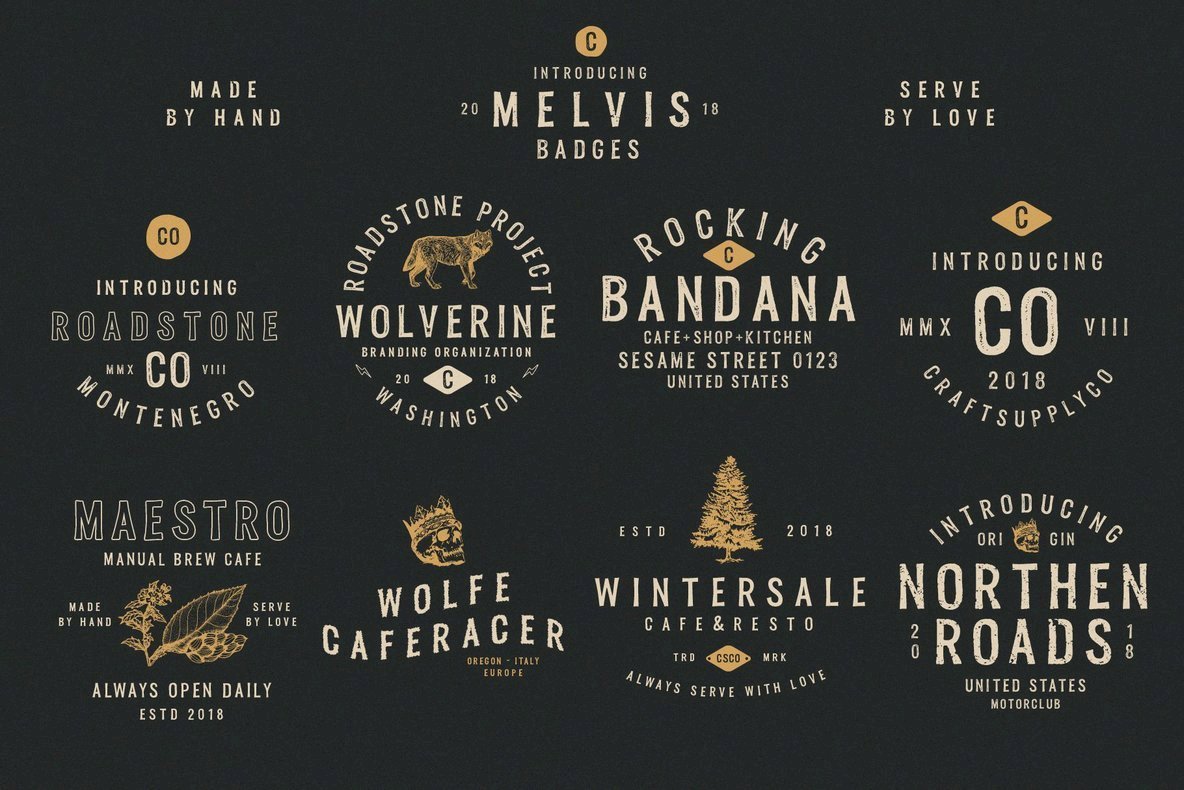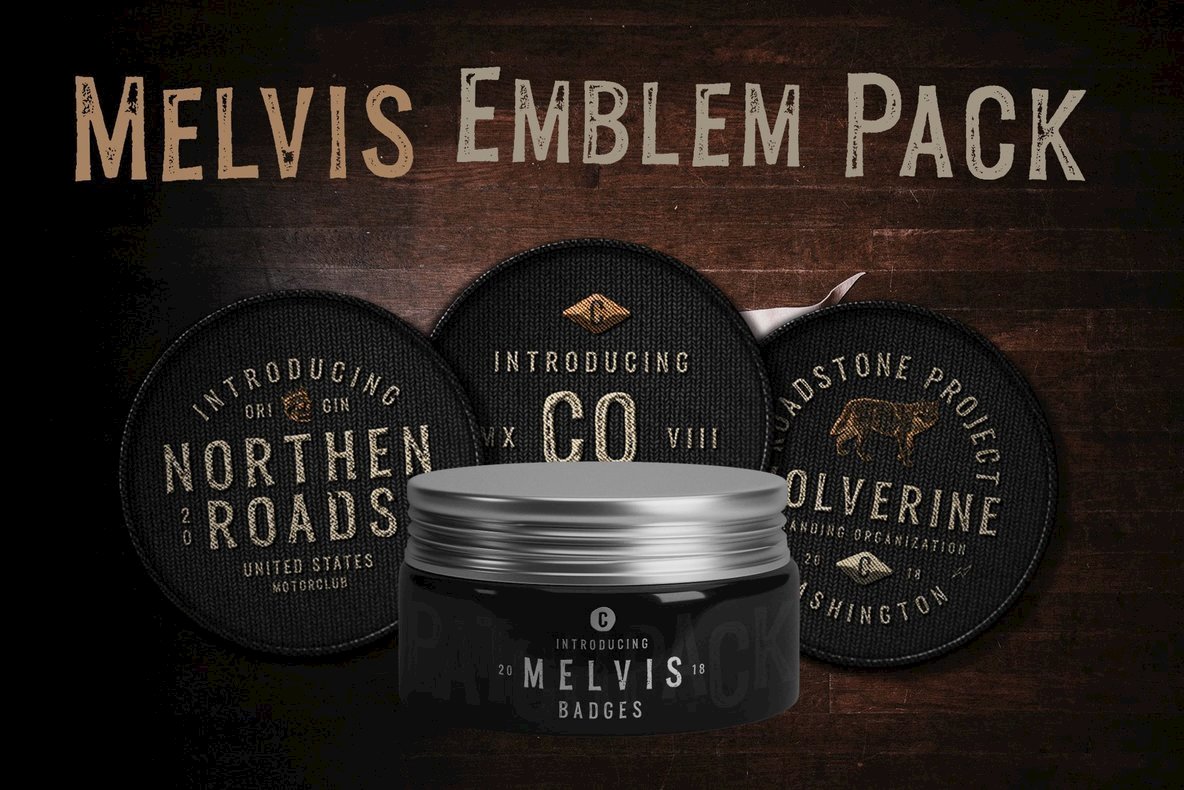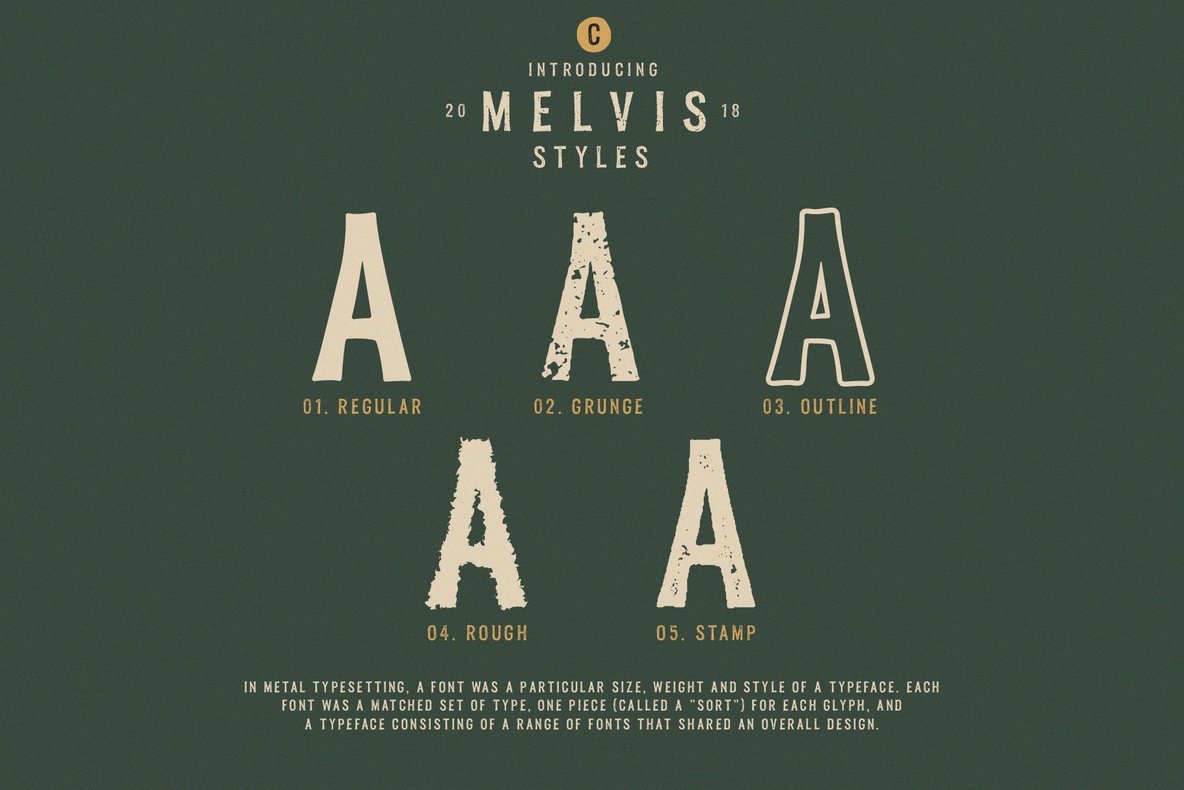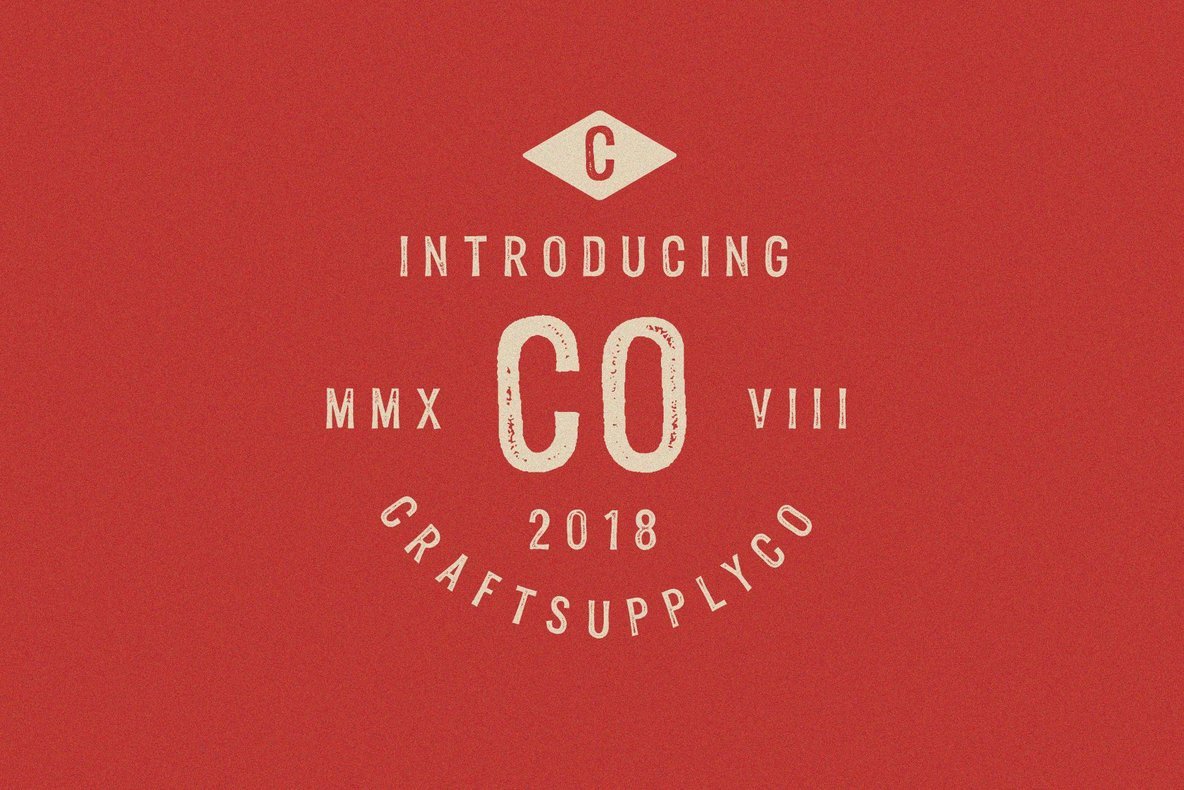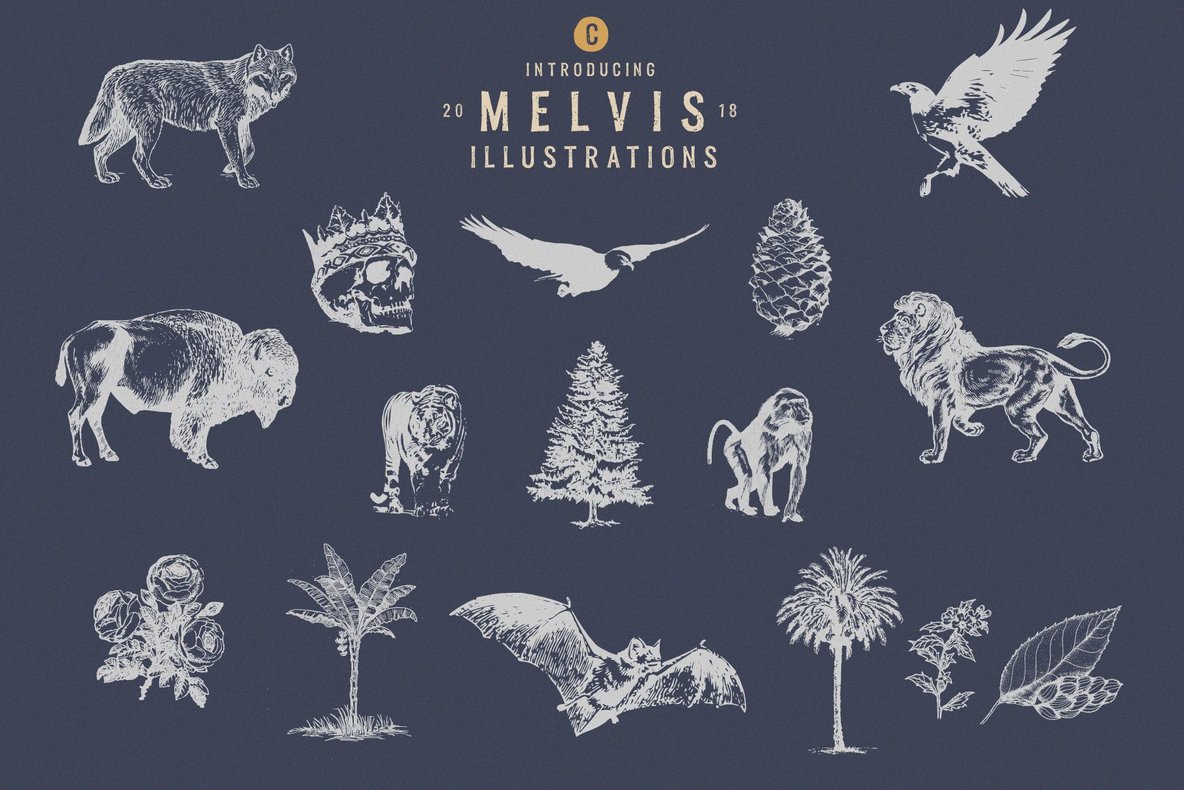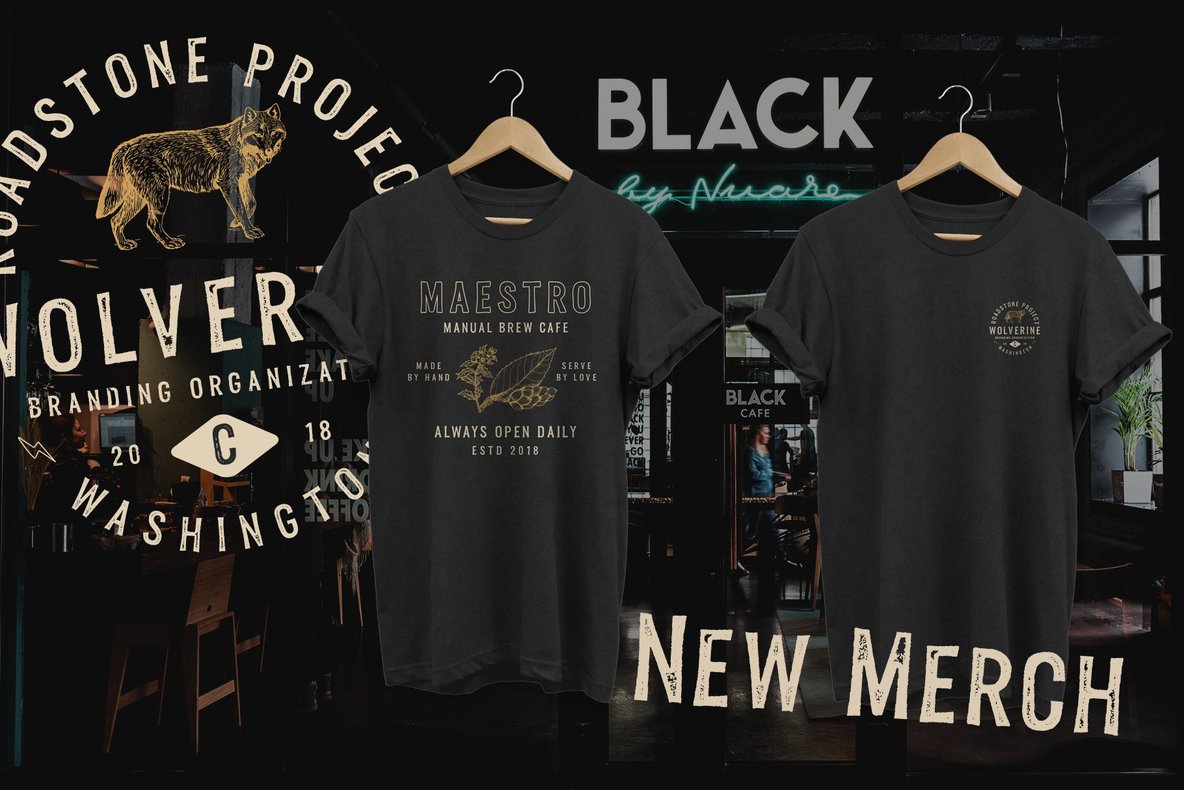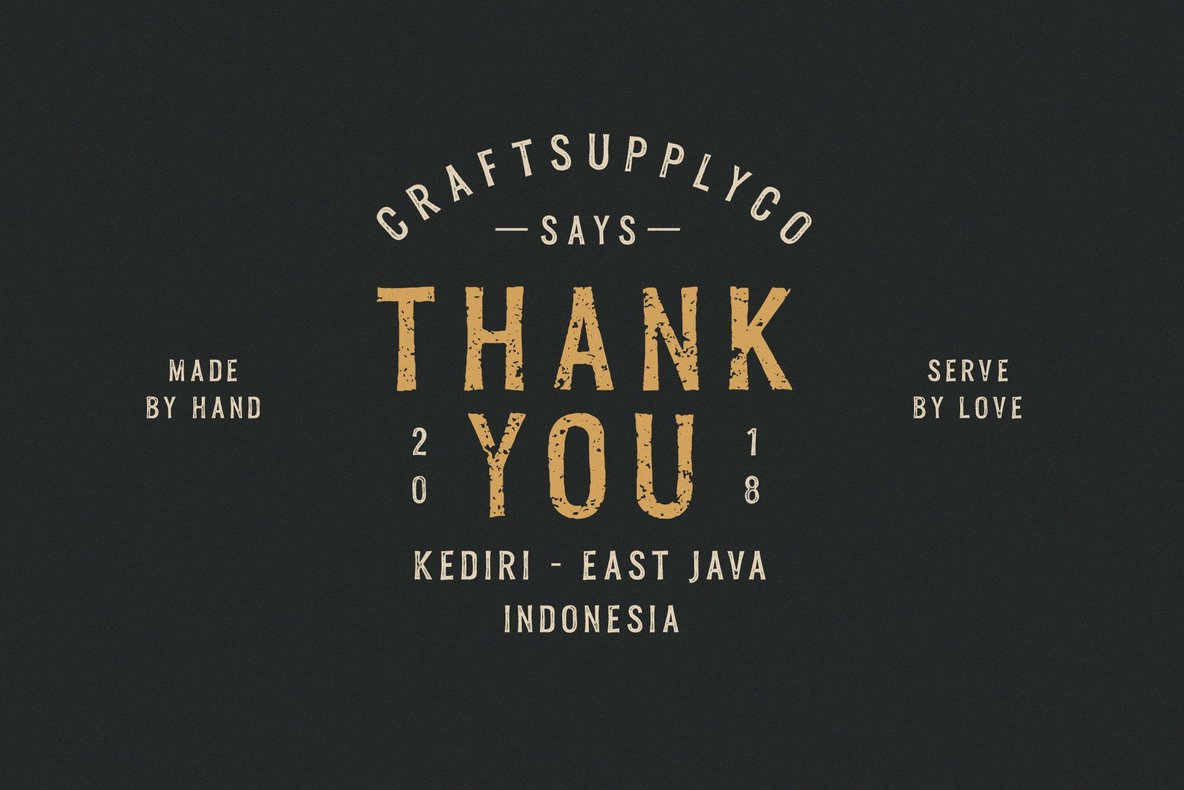
Melvis Font Family and Extras
The Melvis Font Family by Craft Supply Co. echoes an era gone by, capturing the essence of vintage aesthetics with its diverse range of five styles. Perfect for nearly any design venture, this typeface lends itself to print materials, greeting cards, packaging, and even branding pursuits. Utilize the graphic design elements included in the extras to invigorate your projects, whether it’s a personal DIY task or a professional undertaking, and watch as your designs gain vitality. Whether you're crafting a unique wedding invitation, creating a retro-inspired book cover, or designing a pop vintage graphic, the Melvis Font Family and its extras provide a versatile toolkit. The confines of traditional design fade away as you explore the array of patterns and shapes, leveraging them in a myriad of ways to enhance your work. Melvis offers an inviting canvas for your next creative project, requiring no special software to impart its rich character. Embrace the vintage with the Melvis Font Family and enliven your artistic expression.Melvis Font Family: A Blend of Vintage Charm and Modern Utility
Stylish Features